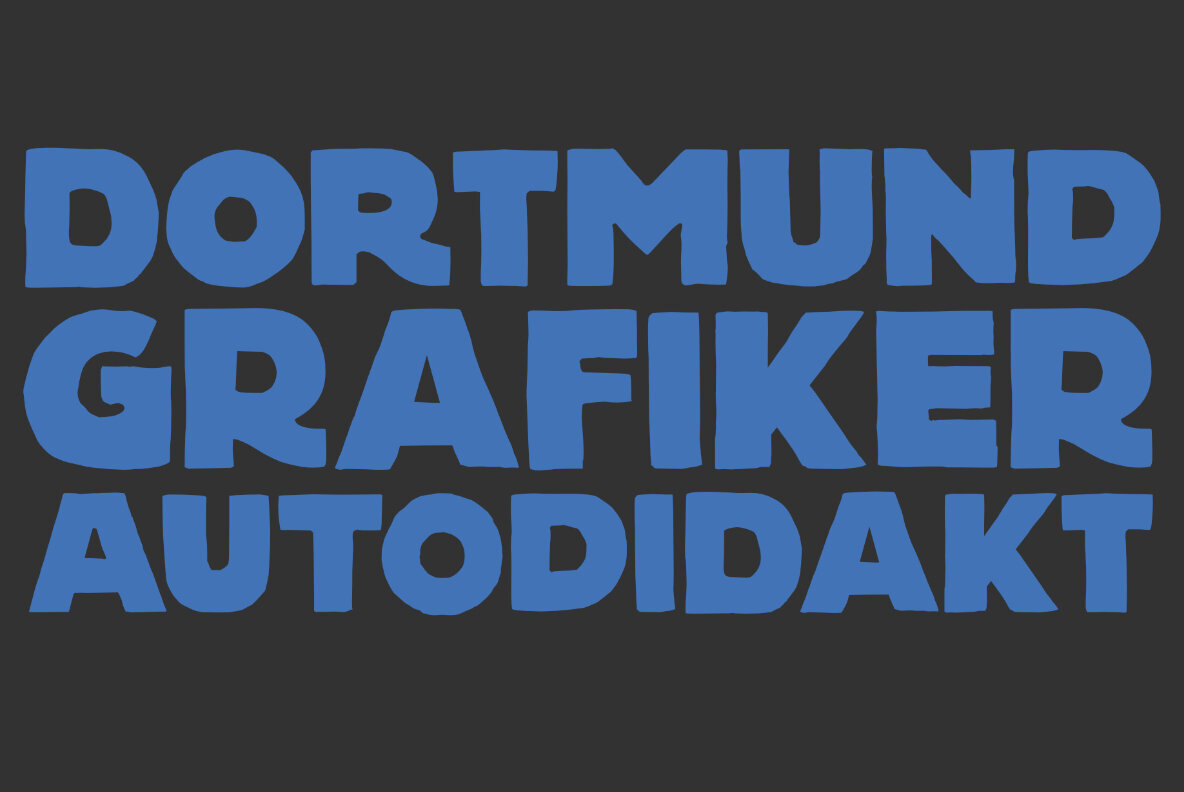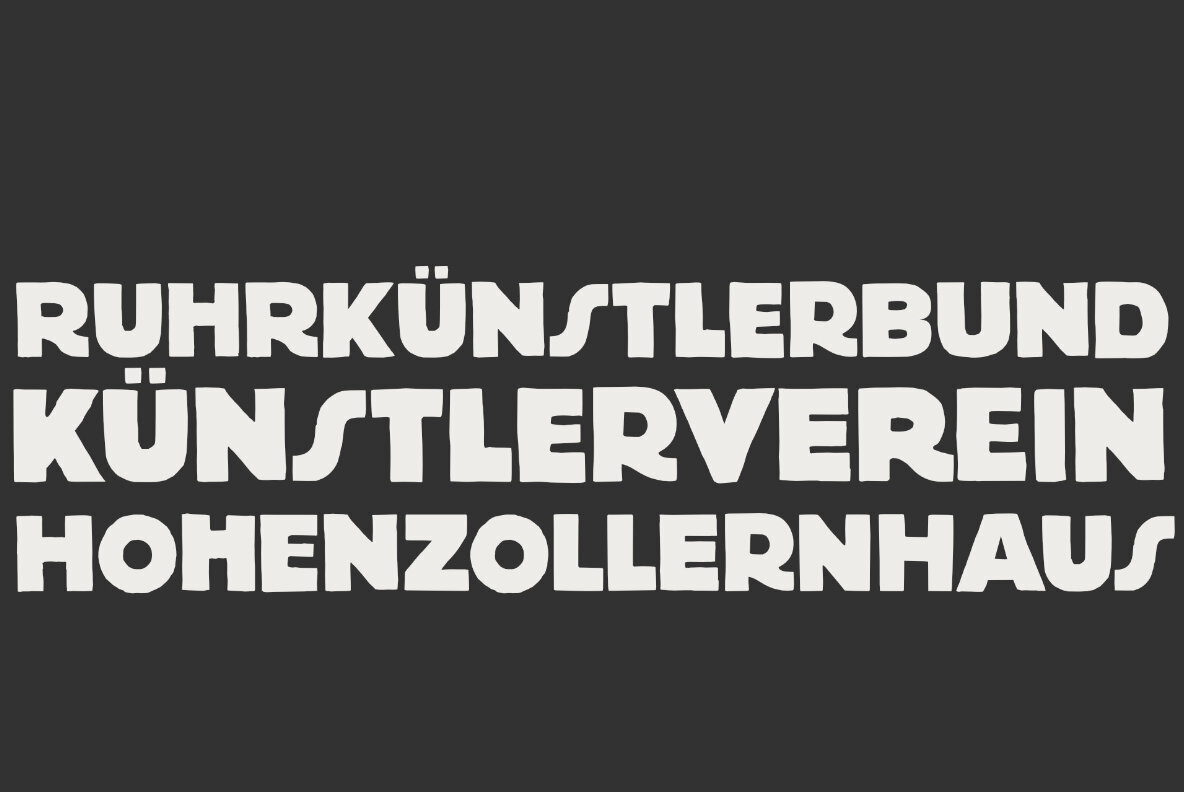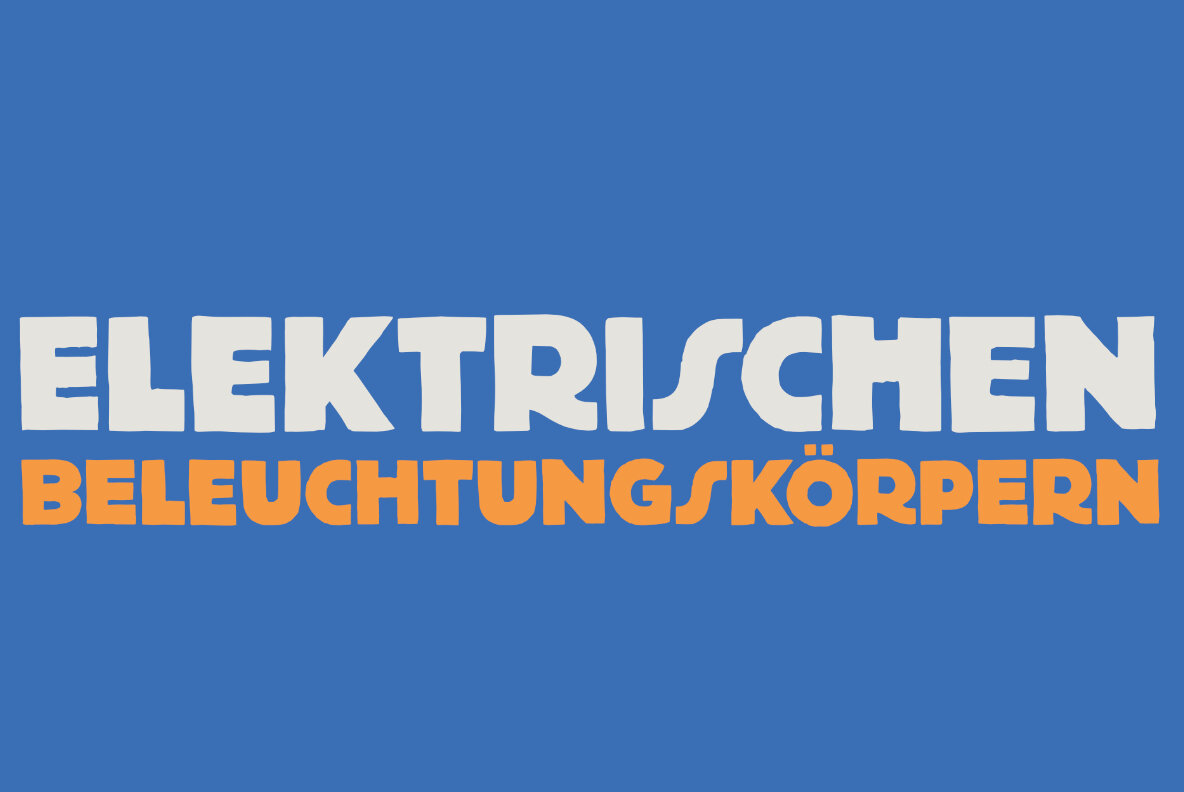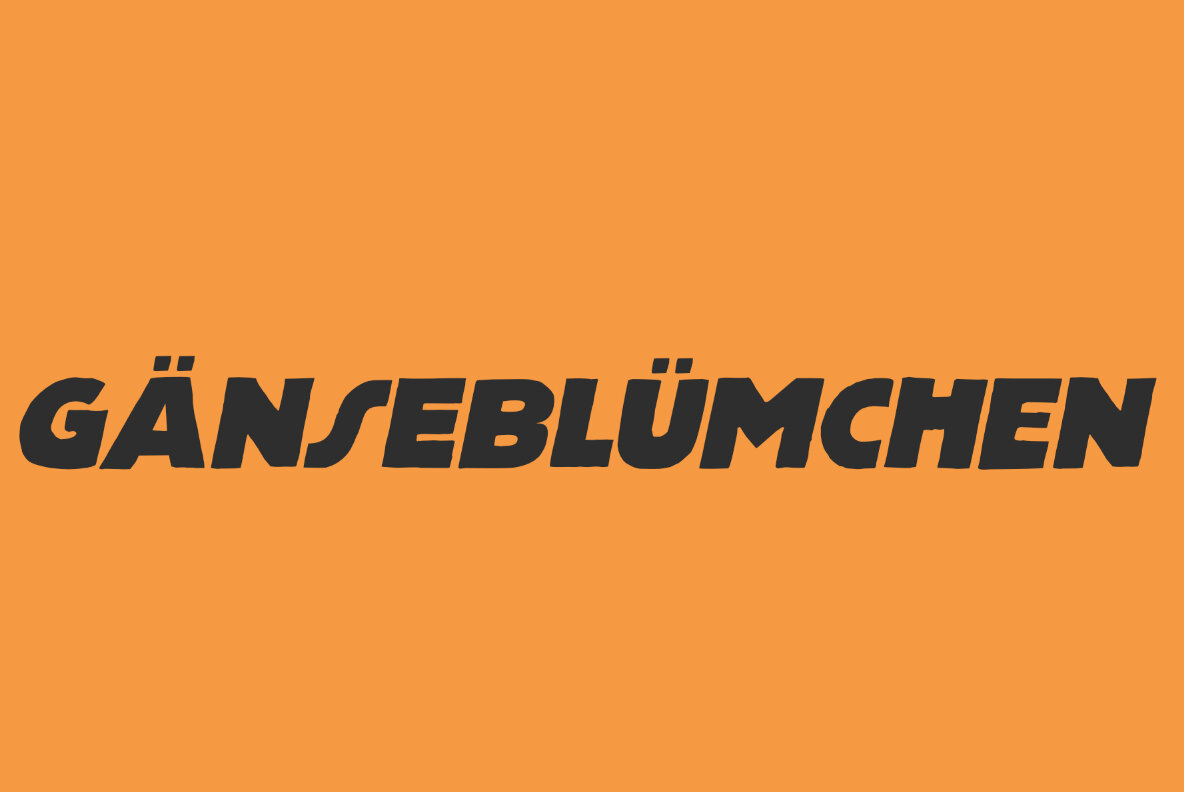
Kunze Font
Kunze Regular
Kunze Italic
Kunze font was inspired by the work of German graphic artist Carl Kunze (Minden, 1884). Kunze is a fat display font; a little rough around the edges, a little wonky in places, but very distinguishable and useful.